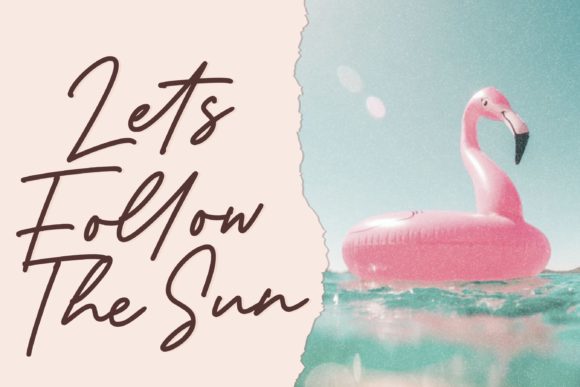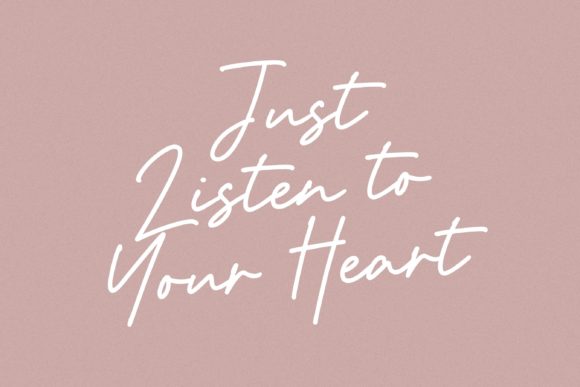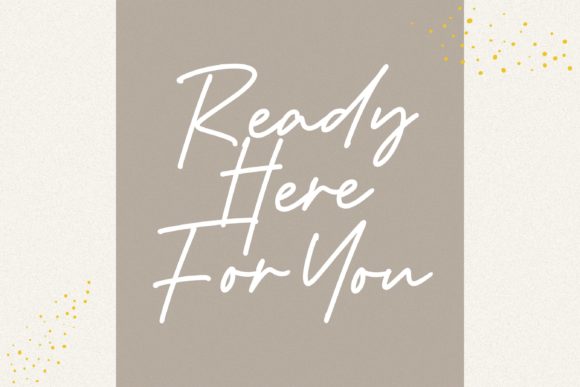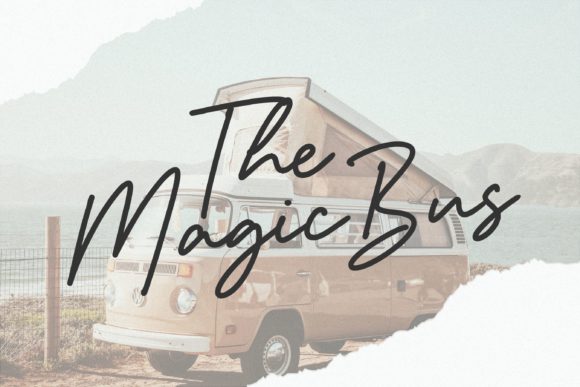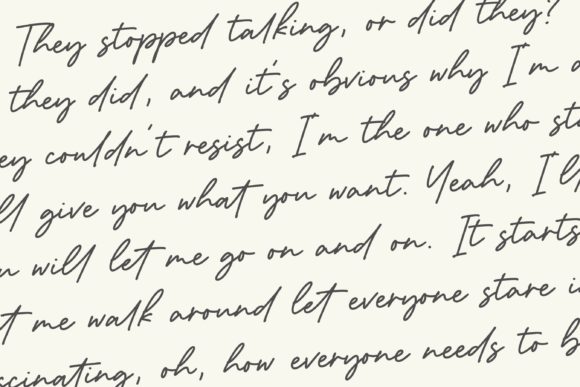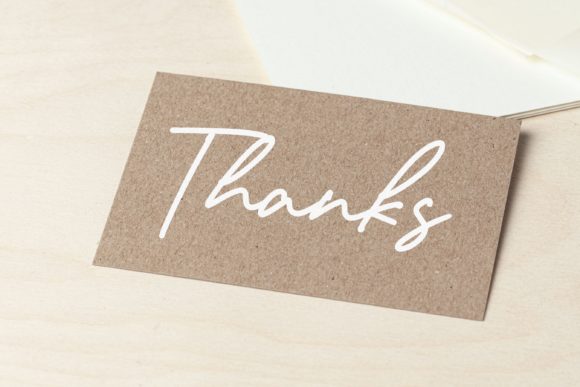
Dementor Font
About Dementor Font
Dementor is a flowing and elegant handwritten font, created with the help of a brush pen. Fall in love with its incredibly versatile style and use it to create gorgeous wedding invitations, beautiful stationary art, eye-catching social media posts, and much more!